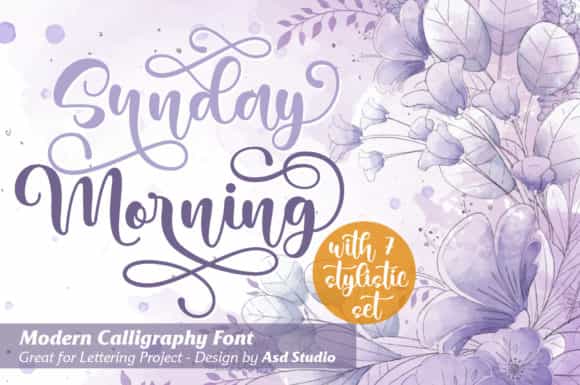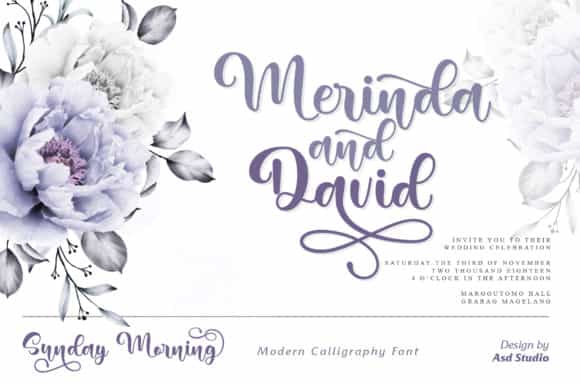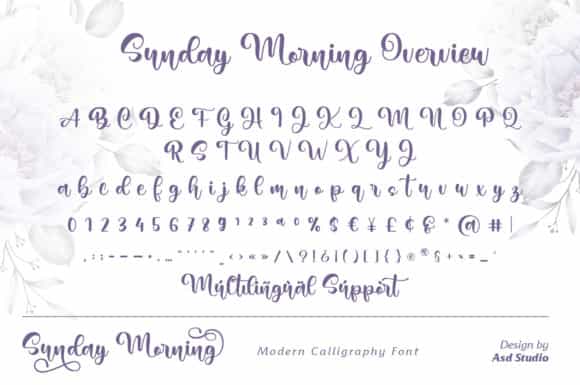
Sunday Morning Font is a font technique where fonts are consolidated into one font and its letters are welded together. It is a cascading font with great flows, swash, and calligraphy especially for modern and beautiful curves.